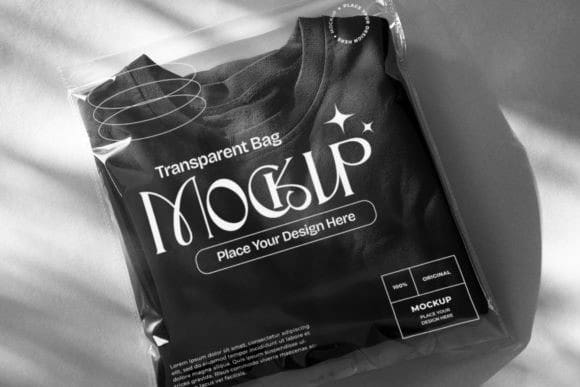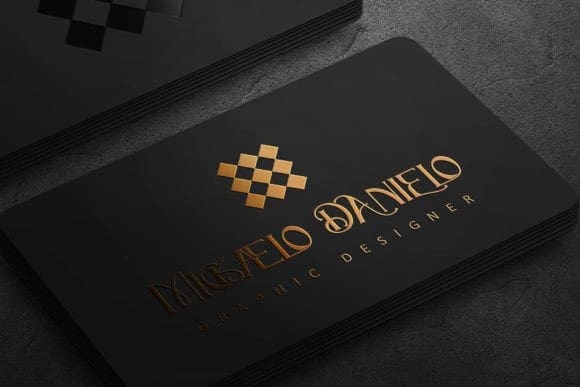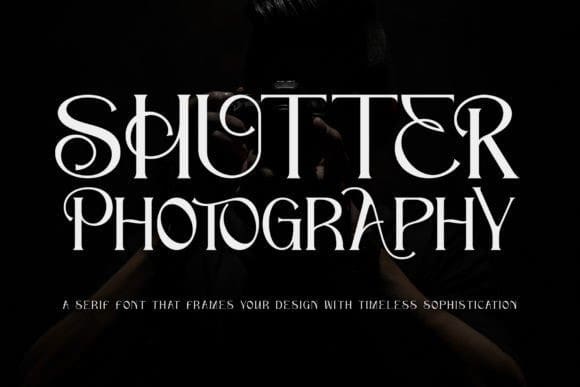
Shutter Photography Font
Shutter Photography Font, a serif font that blends bold sophistication with unique character forms. Perfect for enhancing various design projects, from elegant product packaging to refined branding, this font’s PUA encoding ensures easy access to a wide range of distinctive glyphs and swashes, promising exceptional results for your creative endeavors.